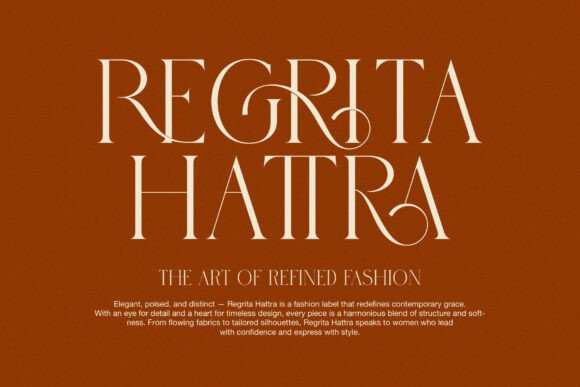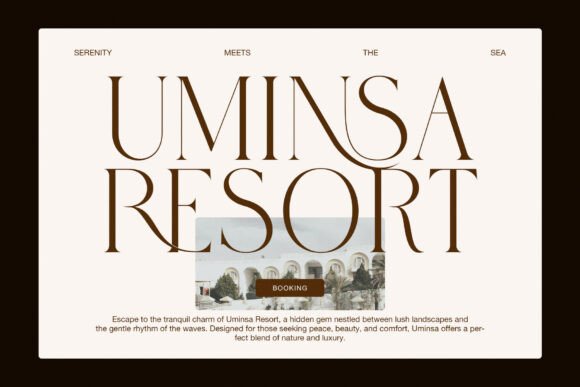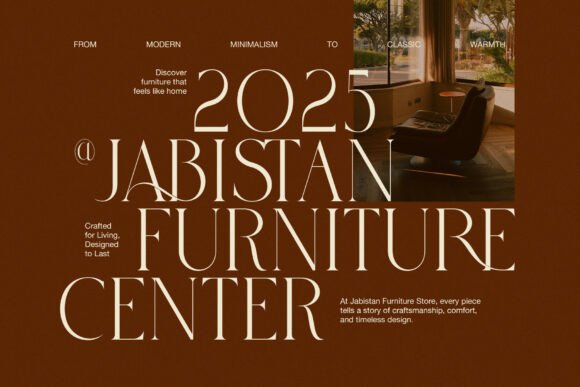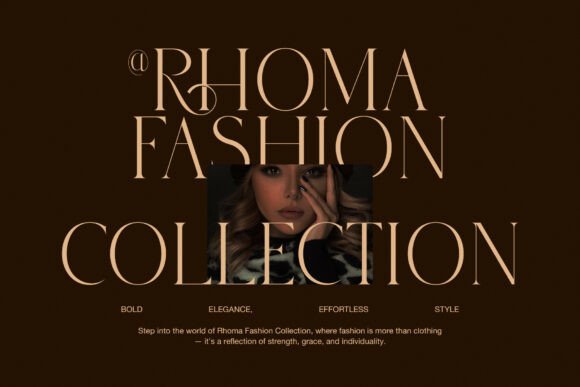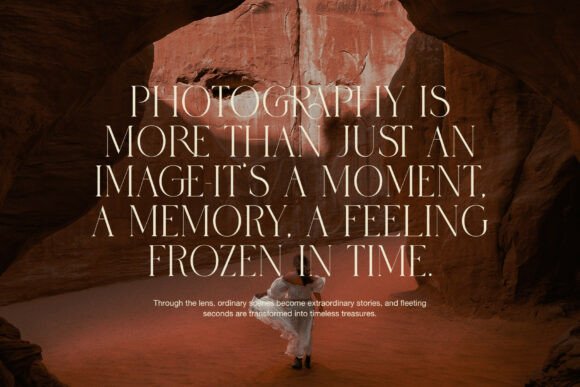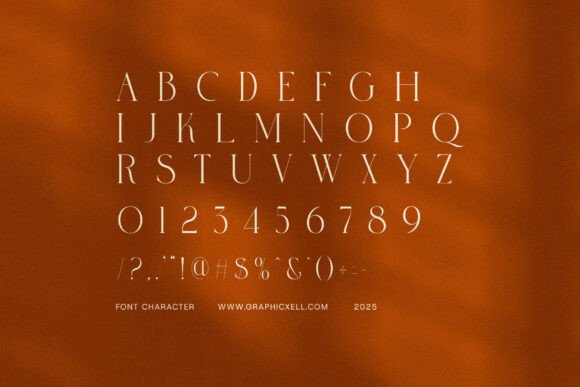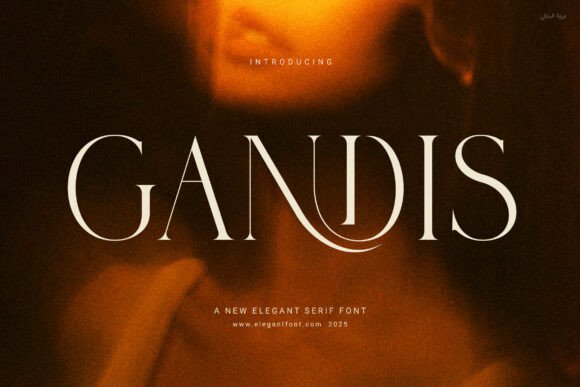
Gandis Font: Elevate Your Design with Elegance and Clarity
In the world of typography, a font can make or break a design. For designers and crafters seeking a modern typeface that exudes style and functionality, look no further than the Gandis Font. Specifically, the Gandis Elegant Serif Font has been crafted to offer a refined and timeless look, making it an ideal choice for a wide range of creative and professional projects.
Clean Lines, Smooth Curves, and Timeless Elegance
The Gandis Elegant Serif Font boasts clean lines and smooth curves that come together to create a sophisticated and elegant appearance. Its balanced form ensures that it fits seamlessly into any design, whether you’re working on a brand identity, product packaging, or a website banner. This balance of style and functionality is what sets Gandis apart, making it a go-to font for designers who want to convey elegance without compromising on clarity.
Functional Ligatures for a Natural and Attractive Text
One of the standout features of the Gandis Font is its inclusion of functional ligatures. These ligatures enhance the natural flow of text, making it appear more attractive and polished. For designers, this means that your text will not only look professional but also inviting and engaging. Whether you’re working on a magazine layout, editorial content, or even a simple business card, the Gandis Font ensures that your text is a compelling part of your design.
Versatility in Pairing
Another significant advantage of the Gandis Font is its ease of pairing with other fonts. Its versatile nature means it can be combined with a sans-serif font for a modern look or with a script font for a more traditional feel. This flexibility ensures that Gandis maintains visual harmony across a wide range of styles and formats, making it an incredibly useful font for designers who work on diverse projects.
Ideal for a Wide Range of Applications
The Gandis Font’s versatility and elegant design make it suitable for numerous applications, including:
- Brand identities and logos: Establish your brand with a sophisticated and memorable typeface.
- Product packaging and labels: Stand out on the shelves with elegant and clear labeling.
- Website banners and hero text: Capture your audience’s attention with a modern and refined look.
- Magazine layouts and editorials: Elevate your content with a font that exudes professionalism and style.
- Wedding invitations and greeting cards: Add a touch of elegance to your special occasions.
- Business cards and presentations: Make a lasting impression with a polished and professional appearance.
- Social media graphics and posts: Enhance your online presence with visually appealing text.
- Advertisements and posters: Draw attention with a clear and stylish typeface.
- Menus and boutique signage: Offer an upscale experience with elegant signage.
- Fashion or beauty branding: Perfect for brands that want to convey sophistication and style.
The Gandis Elegant Serif Font is a powerful tool for designers and crafters looking to infuse their projects with elegance, clarity, and professionalism. Its modern design, functional ligatures, and versatility in pairing make it an excellent choice for a myriad of applications. Whether you’re working on a brand identity, editorial content, or marketing materials, Gandis ensures that your typography is not just a complement to your design but a standout feature. Elevate your designs with the refined and timeless look of the Gandis Font.